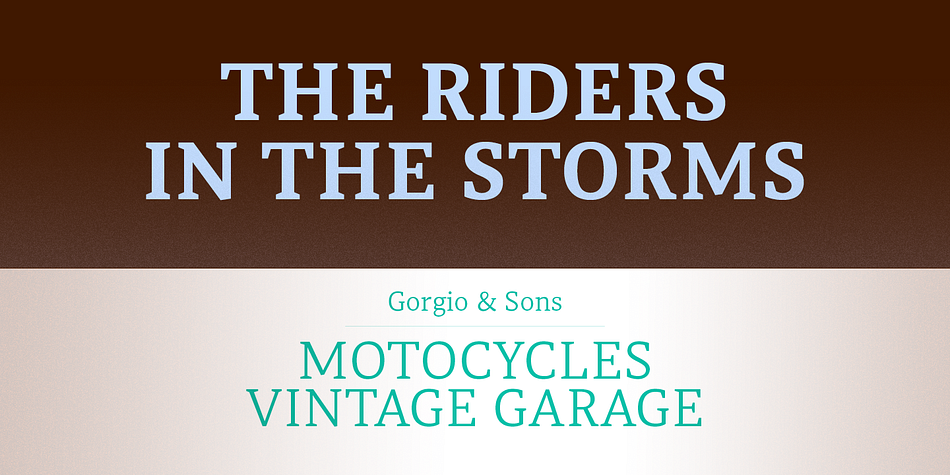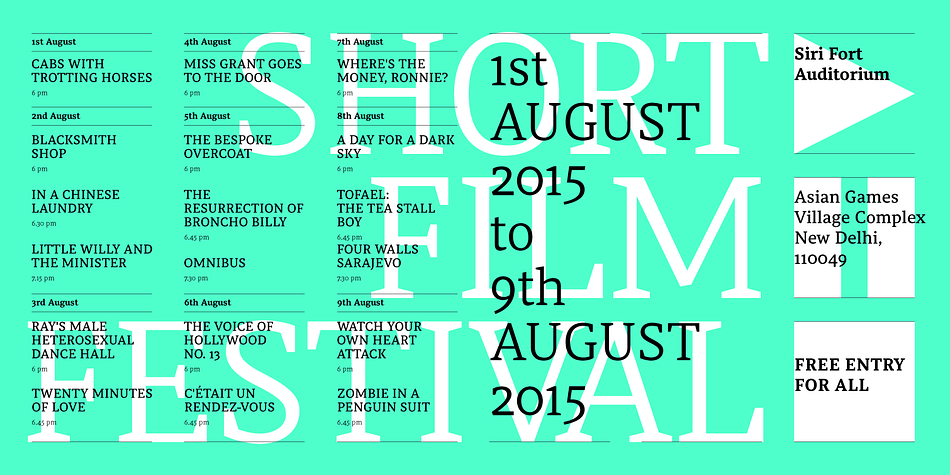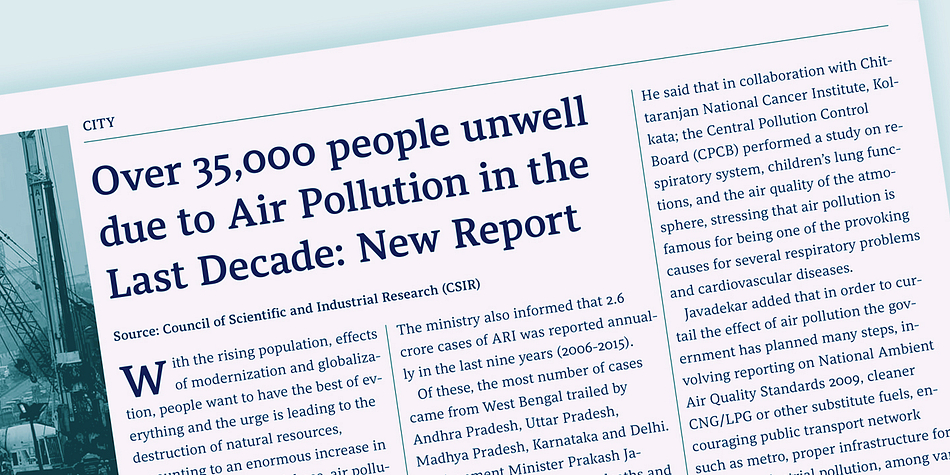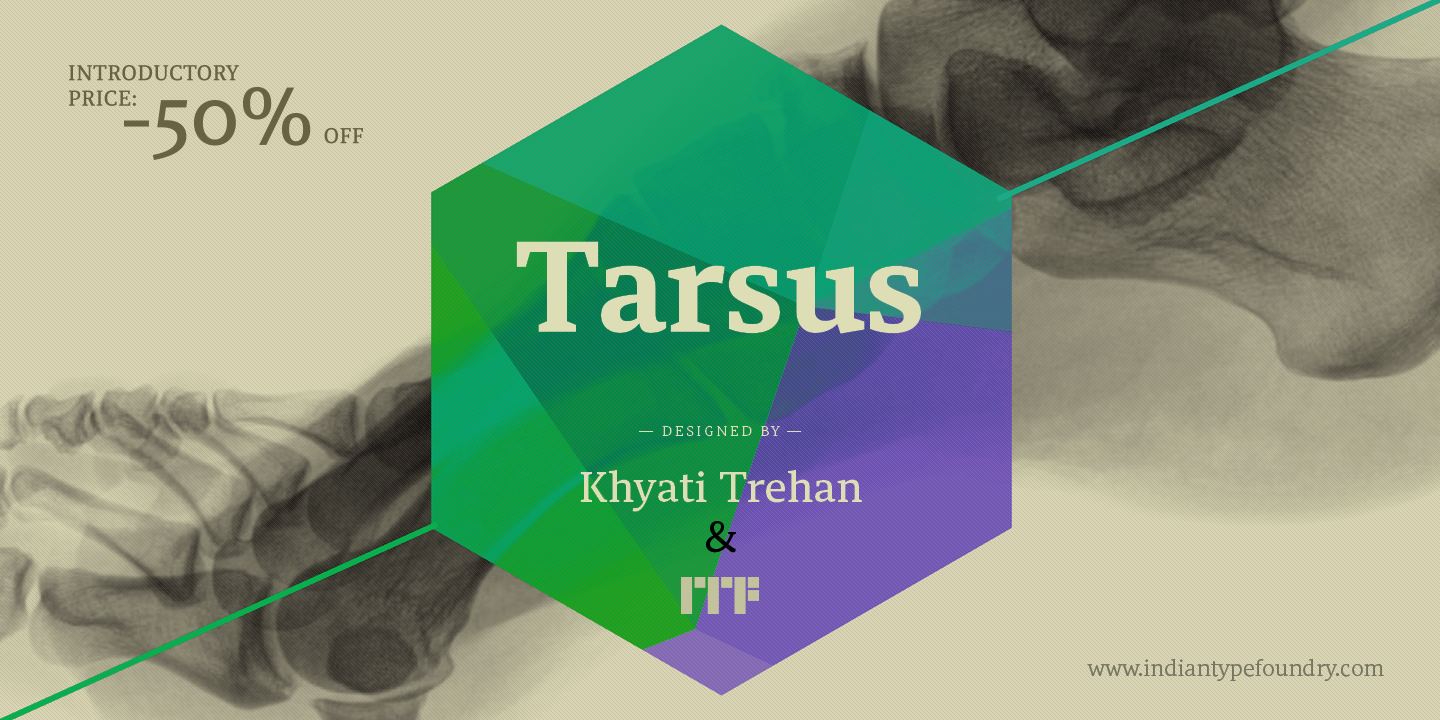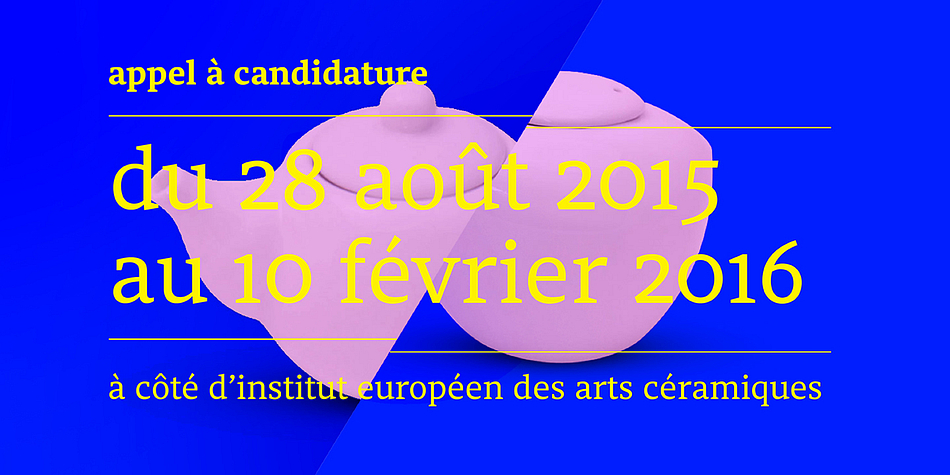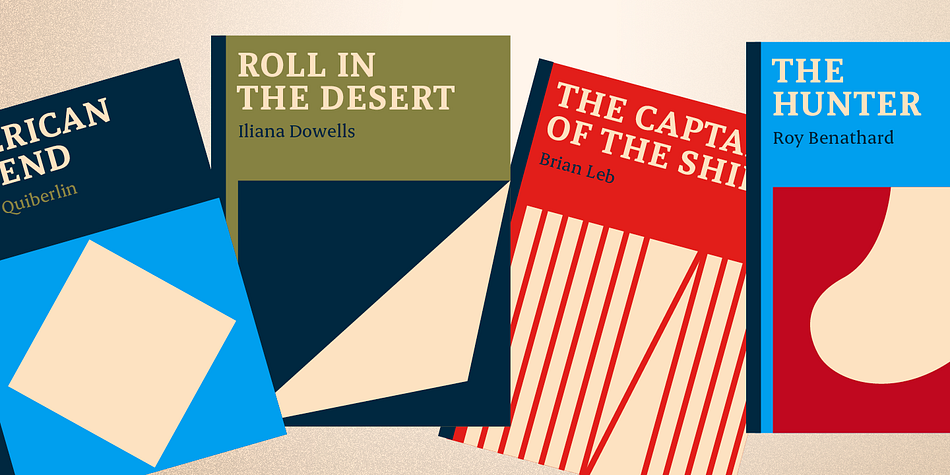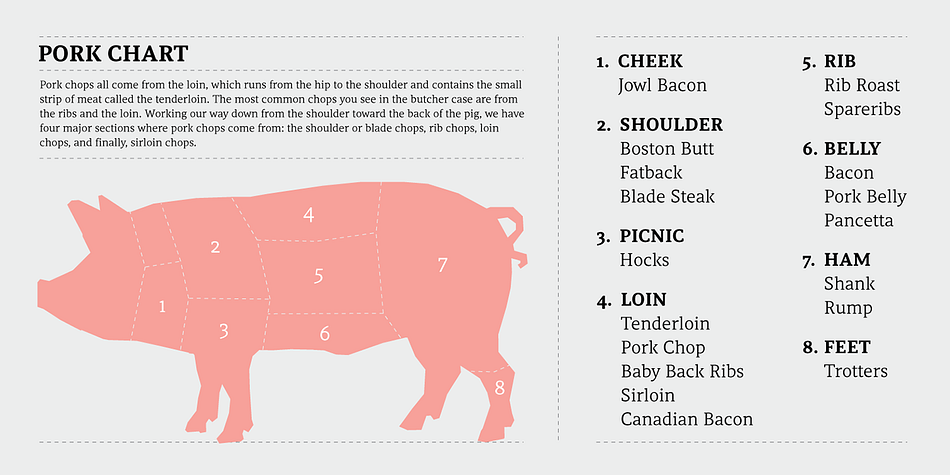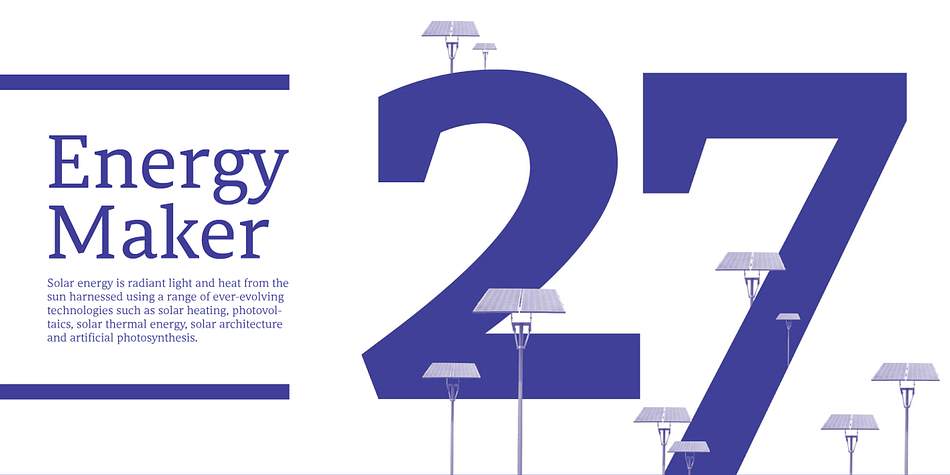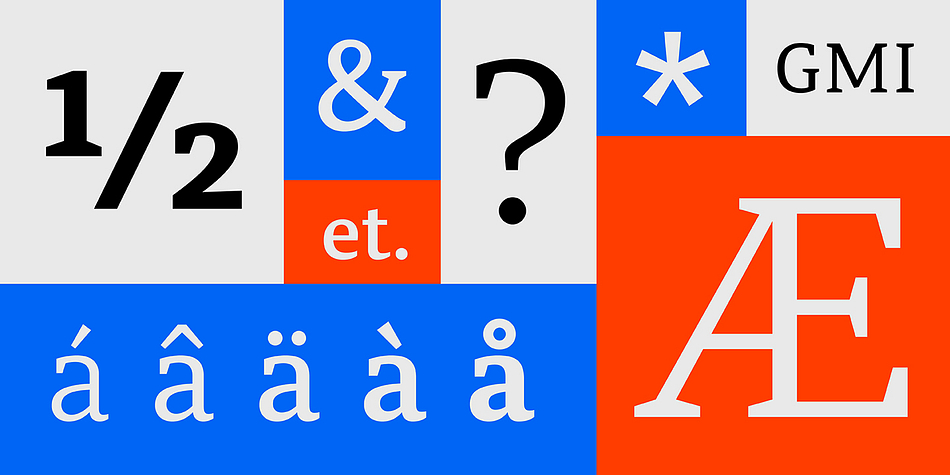
Designed by Khyati Trehan and Indian Type Foundry, Tarsus is a serif font family. This typeface has ten styles and was published by Indian Type Foundry.
Tarsus is a sturdy serif typeface for the Latin script. It has been optimised for text, and will handle any environment you throw it into, even newsprint. Its letters feature sharp, wedge-like serifs and open counter forms. Text set in small sizes remains still quite legible.
The design’s numerals are oldstyle figures, and there are five weights in the family, ranging from Light to Bold.
Tarsus Light is low-contrast, but as the family’s weights grow bolder, stroke contrast increases. Tarsus was developed in 2014–15 by Khyati Trehan and ITF.